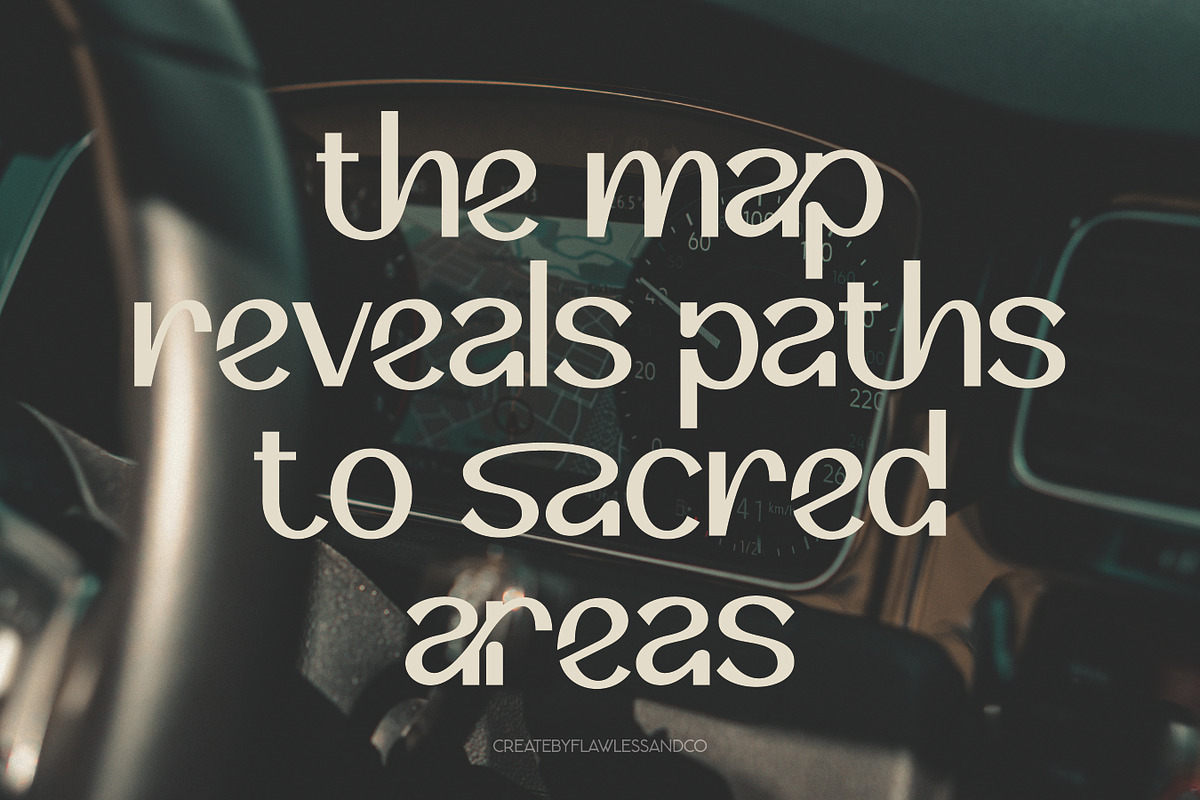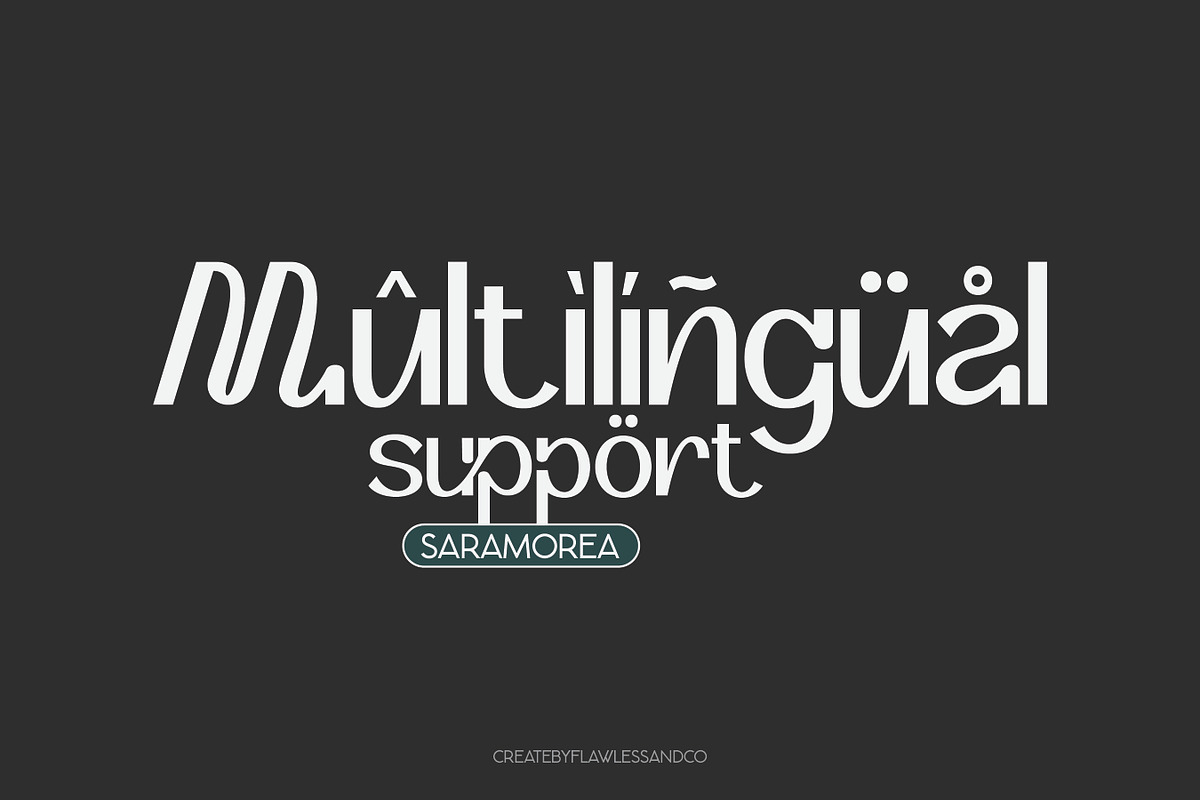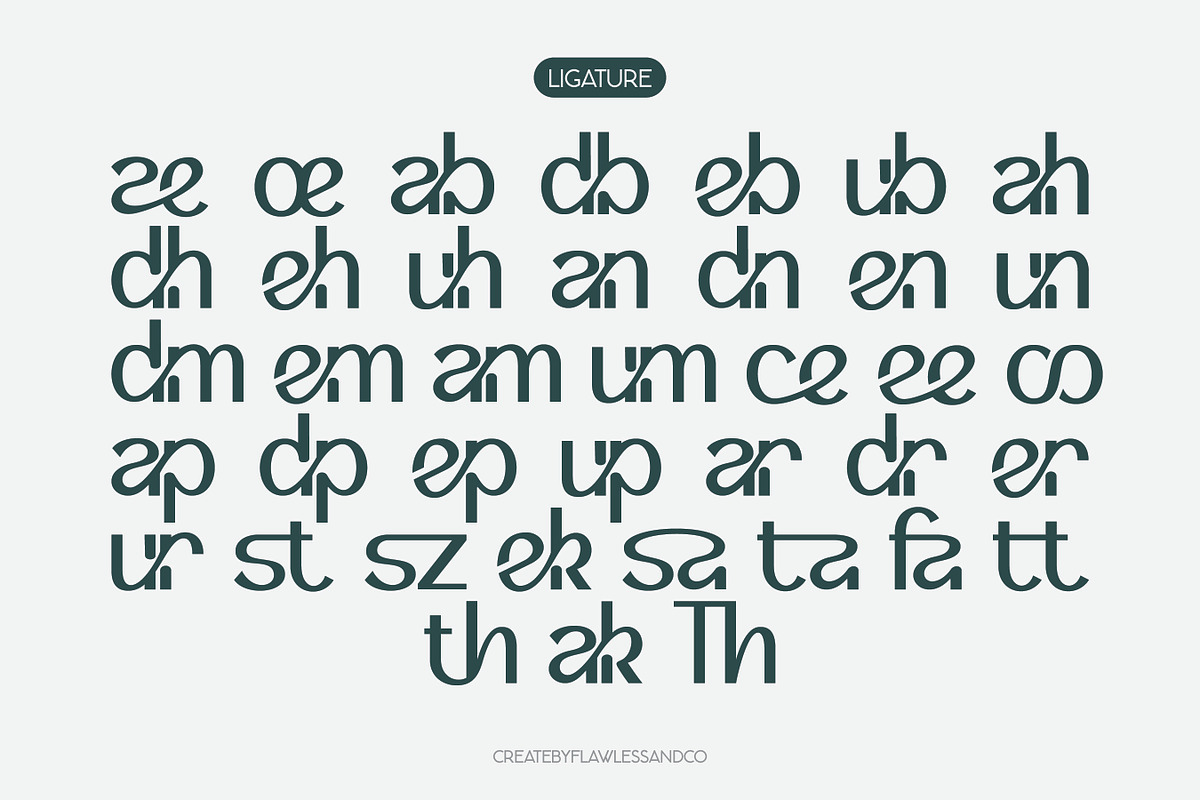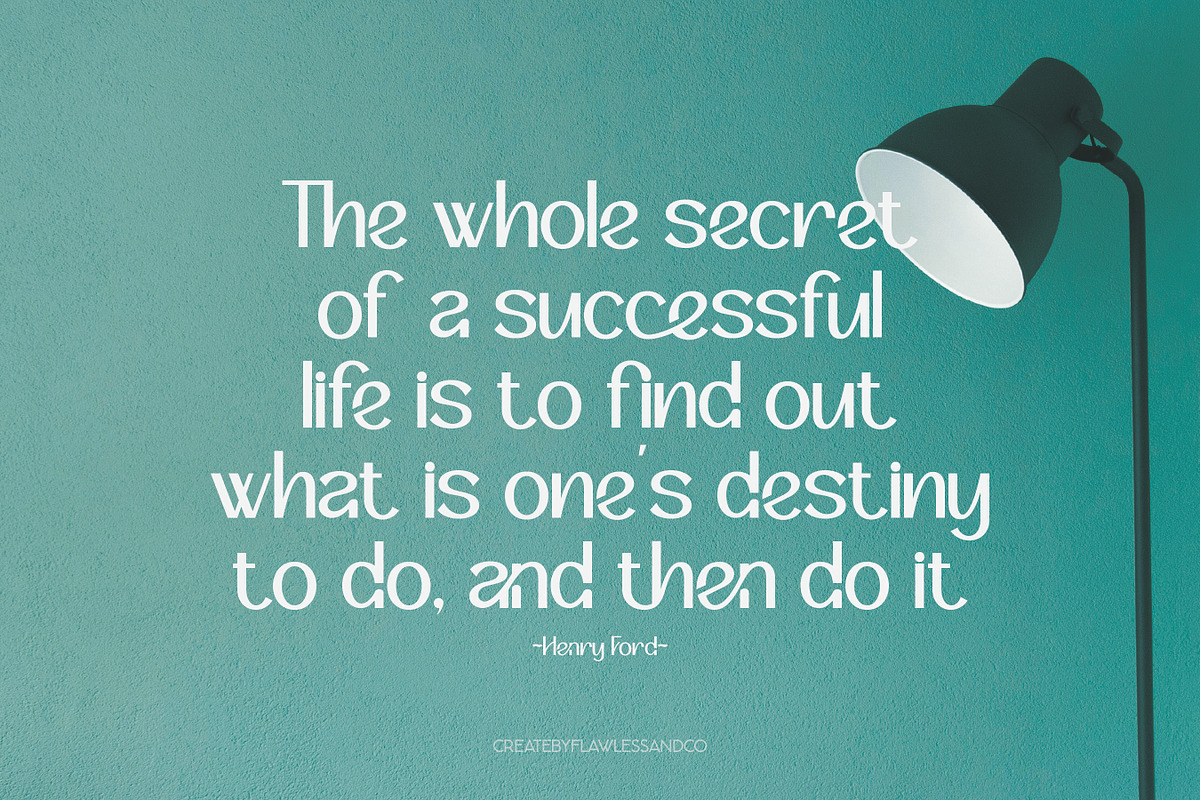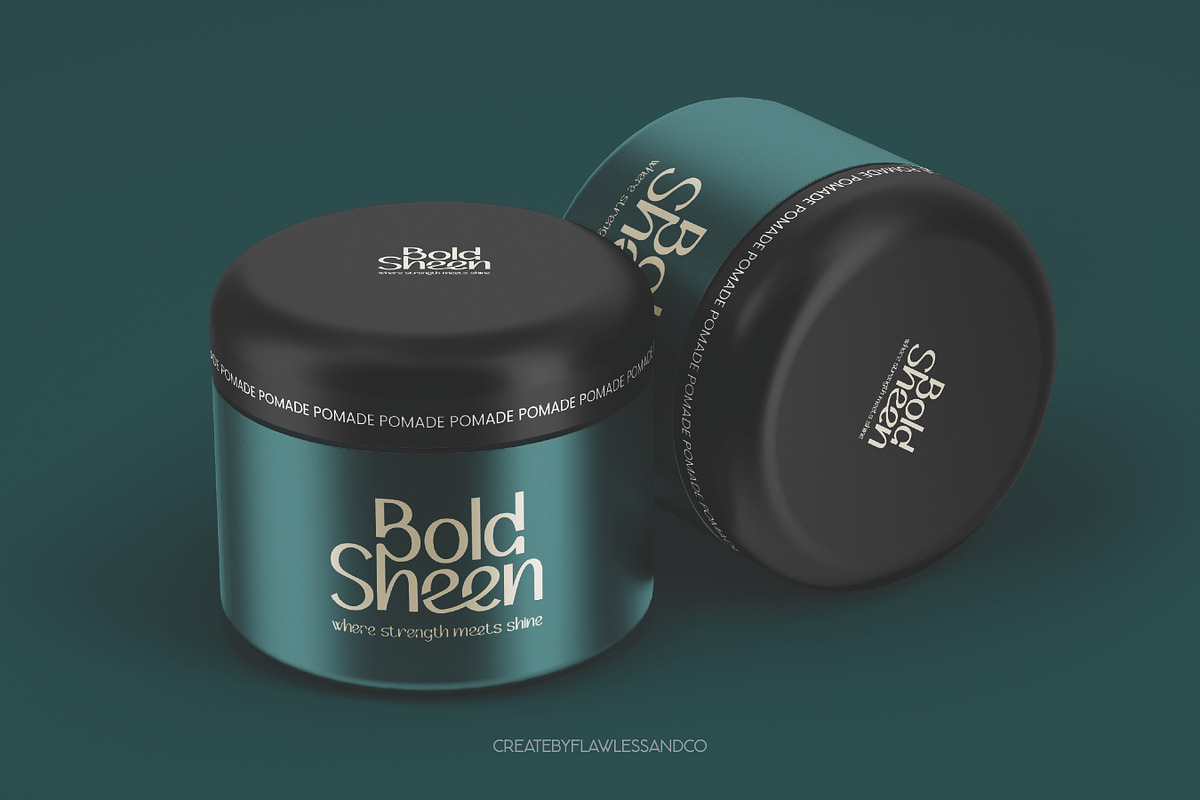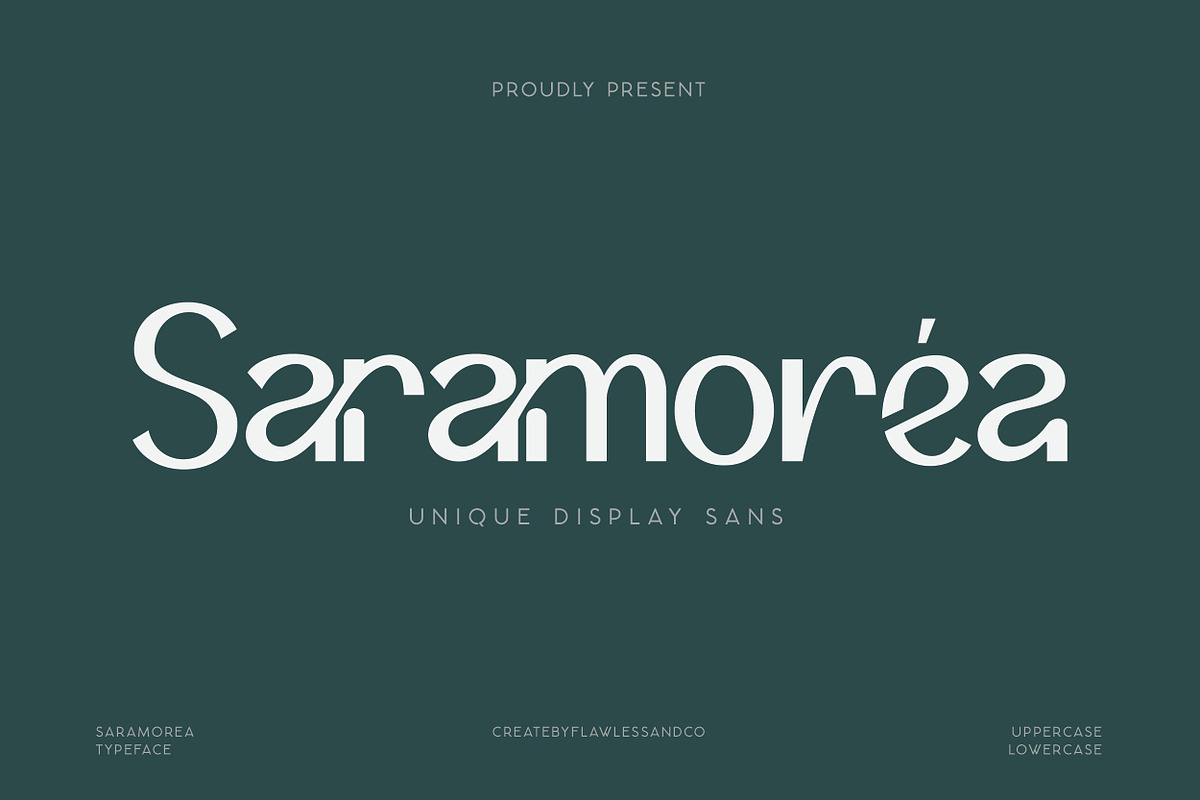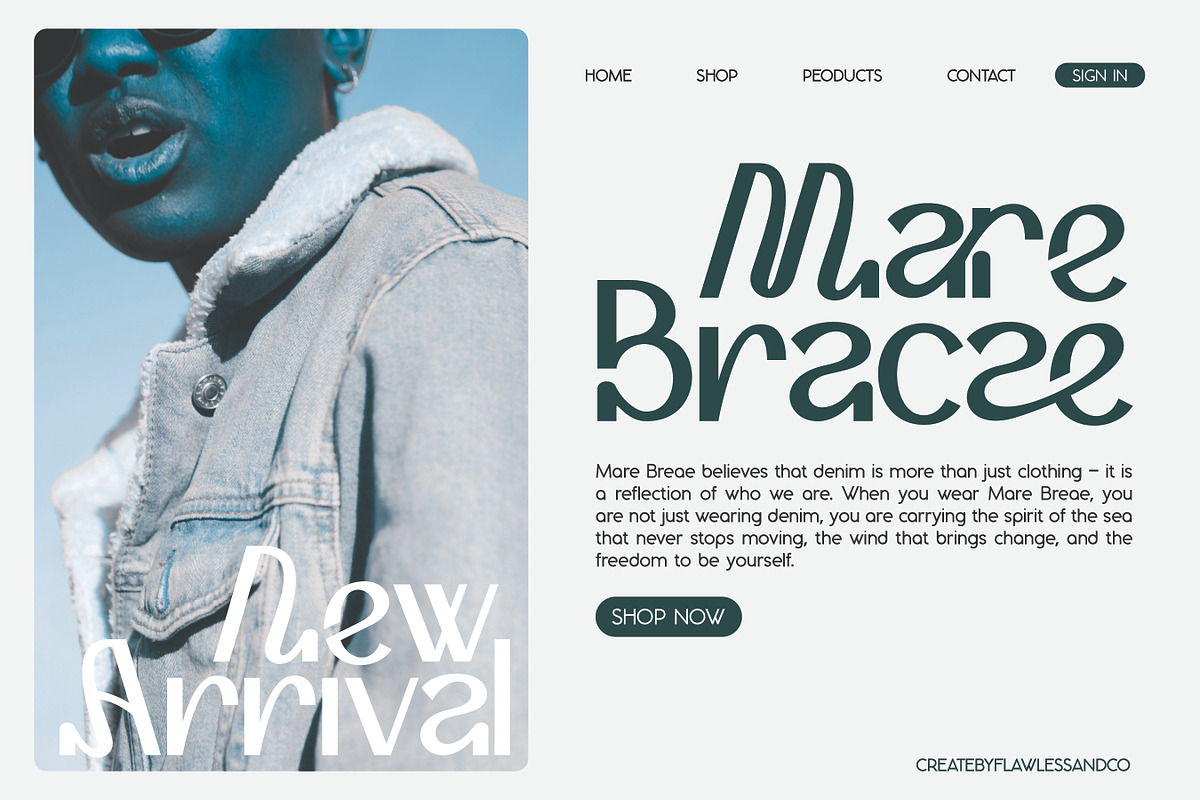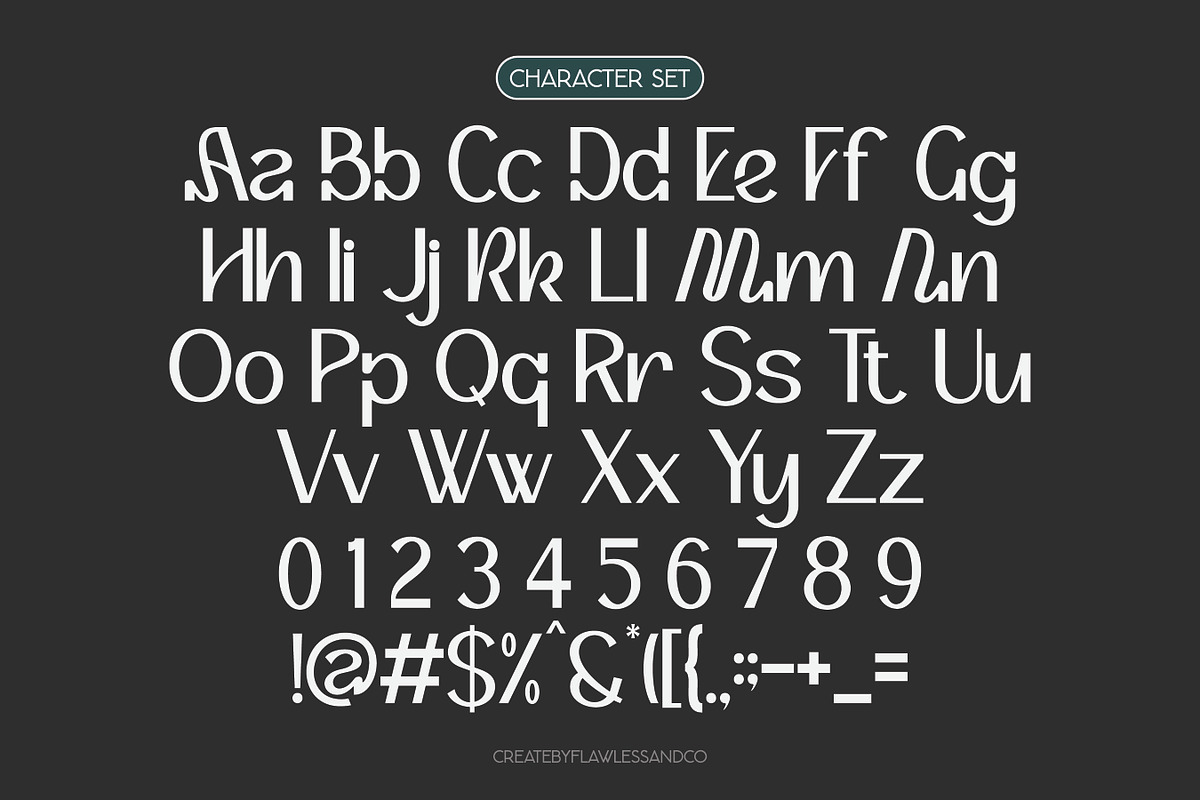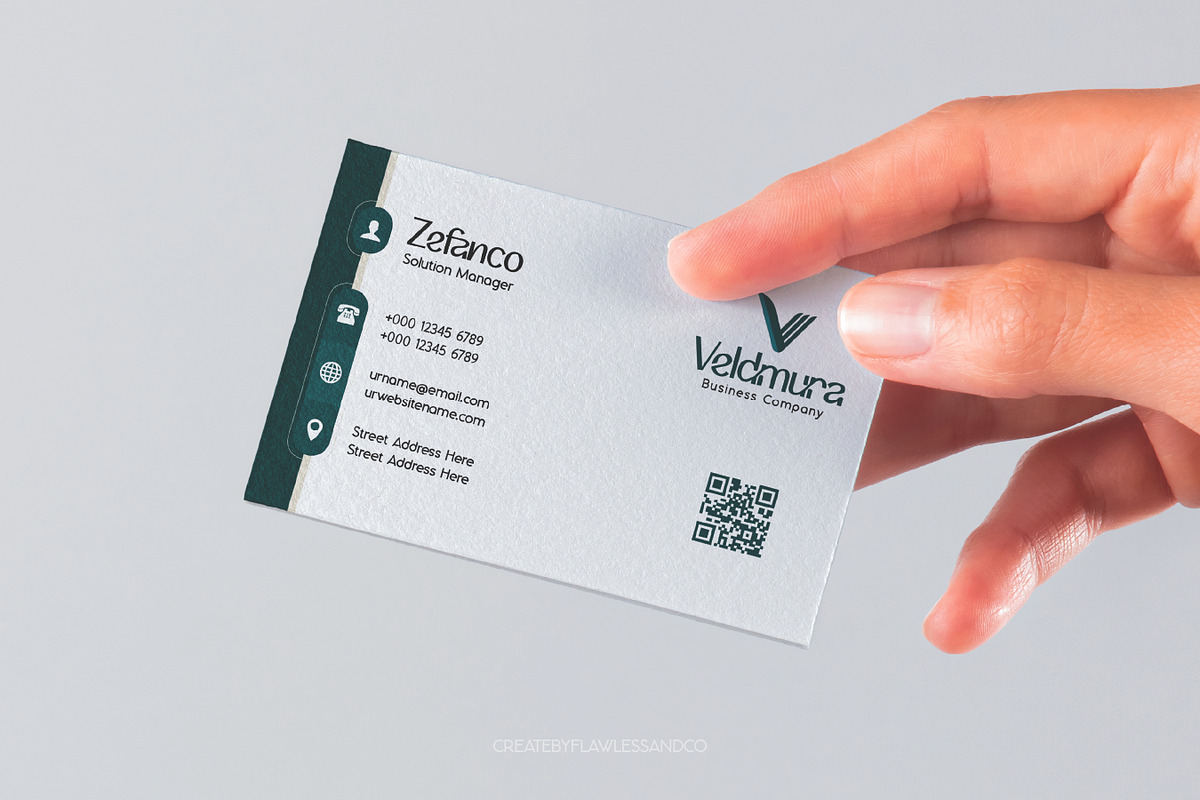
Saramorea - Display Sans Serif Font
Saramorea – Bold Expressive Sans Serif Font
Saramorea is a bold sans serif serif font that blends expressive character with artistic elegance. Inspired by classic editorial aesthetics with a modern twist, Saramorea stands out with its high contrast, wide letterforms, and stylish personality.
Perfect for high-impact design projects such as fashion editorials, luxury branding, posters, and creative headlines, Saramorea brings a bold, sophisticated presence to any layout. Every letter is crafted with a balance of strength and grace, making your typography feel both dramatic and refined.
The font includes elegant alternates and unique ligatures, giving you the creative flexibility to add variation and flair to your compositions.
Use Saramorea to make a striking and unforgettable visual impression.
Who Should Use Bold Sans Serif Font Saramorea? Saramorea is made for creatives, designers, and brands who want to make a statement.
This font is perfect for:
- Fashion designers & luxury brands looking for elegant, high-impact typography
- Editorial & magazine layouts needing bold, stylish headlines
- Creative agencies working on premium branding and identity projects
- Poster & cover designers who want expressive, eye-catching type
- Social media content creators aiming for sophisticated, scroll-stopping visuals
- Wedding & event creatives who need a classy yet contemporary serif
Whether you’re designing for print or digital, Saramorea delivers dramatic flair and refined charm in every character. It's the go-to font for bold, expressive, and elegant storytelling.
A Must-Have Font for Brand Creators and Designers Saramorea is more than just a font — it's a visual statement. Designed for brand creators and designers who crave elegance with impact, this bold sans serif elevates logos, packaging, websites, and more. Whether you're shaping a luxury identity or crafting editorial visuals, Saramorea brings timeless sophistication to your creative toolkit.
Why Choose Saramorea for Brand Projects? Because your brand deserves a typeface that speaks style, strength, and sophistication. Saramorea isn't just another serif—it's a bold identity builder. With its high-contrast strokes, artistic curves, and refined letterforms, Saramorea instantly communicates confidence and luxury.
Whether you're designing logos, packaging, social media visuals, or editorial layouts, Saramorea helps your brand:
- Stand out in a saturated market
- Elevate its visual identity with timeless elegance
- Create consistency with stylistic alternates and ligatures
- Connect emotionally with a premium, expressive tone
For designers who care about detail, aesthetic, and bold storytelling—Saramorea is the font you can rely on.